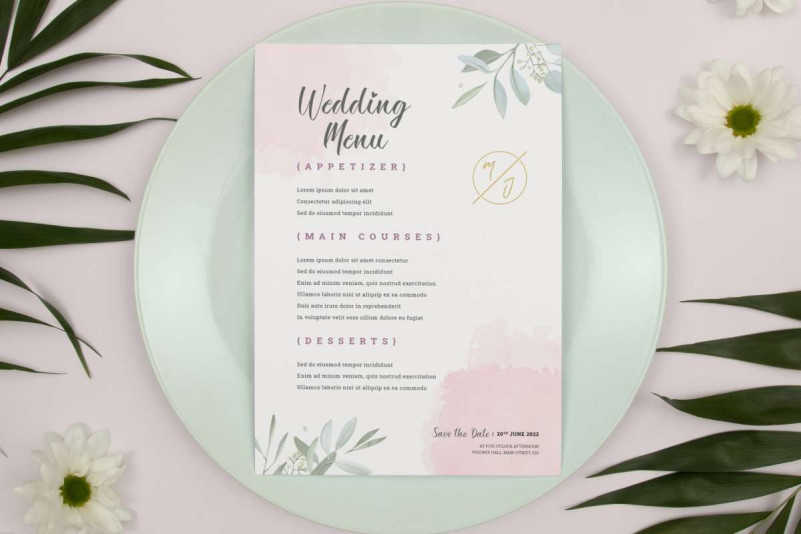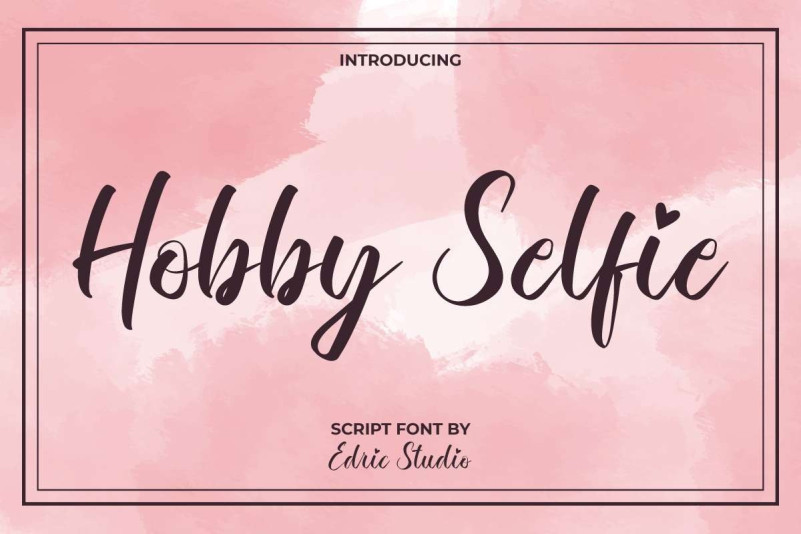
Hobby Selfie Font
Hobby Selfie Script Font is a lovely brush calligraphy font. This font is carefully crafted to create flawless perfection in real hand writing look while still easy to read. The font is suitable for many industries, such as accessories, architect, bakery, clothing brand, cosmetic, event organizer, flower shop, hotel, photography, printing, publishing, real estate, restaurant, spa salon, wedding organizer, and much more.
Hobby Selfie Font comes with a full set of Uppercase and Lowercase Basic Characters, Number, a large range of Punctuation and Symbol. It has a stunning characters set, perfectly managed with well spaced and kerning. Hobby Selfie Font will be great for any projects (with extended license) including : brand logo, brochure, business card, label, menu, packaging design, quote, screen print, sticker, title, website, etc.